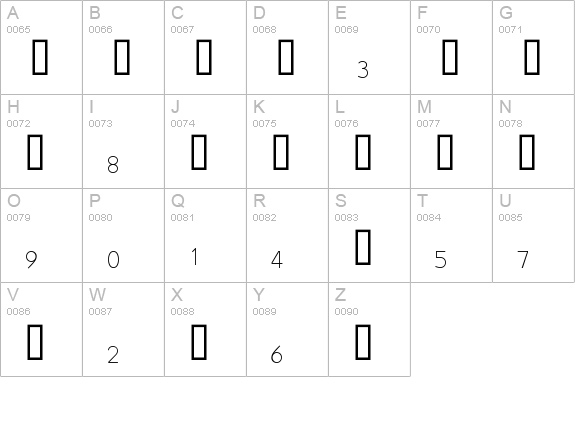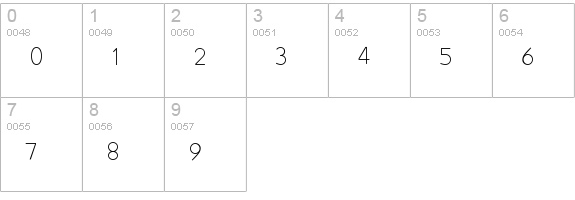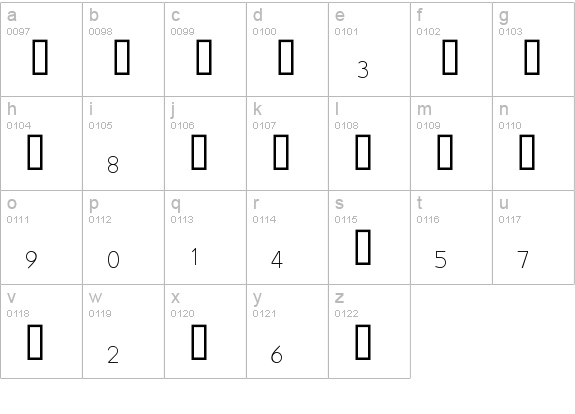
HoosickFallsFractions font is a versatile and elegant typeface that is perfect for a wide range of design projects. With its clean lines and modern aesthetic, this font exudes sophistication and style. The unique fractions design adds a touch of creativity and flair to any text or graphic element. What sets HoosickFallsFractions font apart is its seamless integration of fractions, making it ideal for use in mathematical and scientific documents, recipes, or any project that requires accurate and visually appealing fraction representations. The font's legibility and readability make it a practical choice for both print and digital media. Best of all, HoosickFallsFractions font is freely available to download at FontsMarket.com. Grab this stunning typeface today and elevate your designs with a touch of modern elegance and precision.